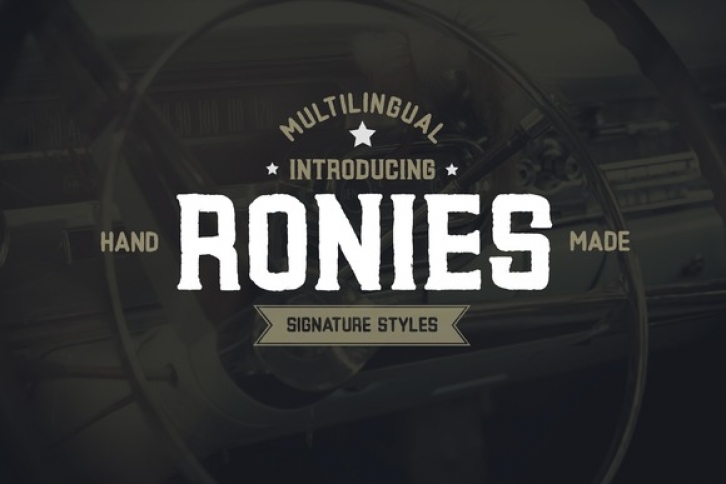
Ronies is a hand made vintage typeface. It has a retro feeling and with different weights, this typeface is perfect for magazines, invitations, headers and even large-scale artwork.